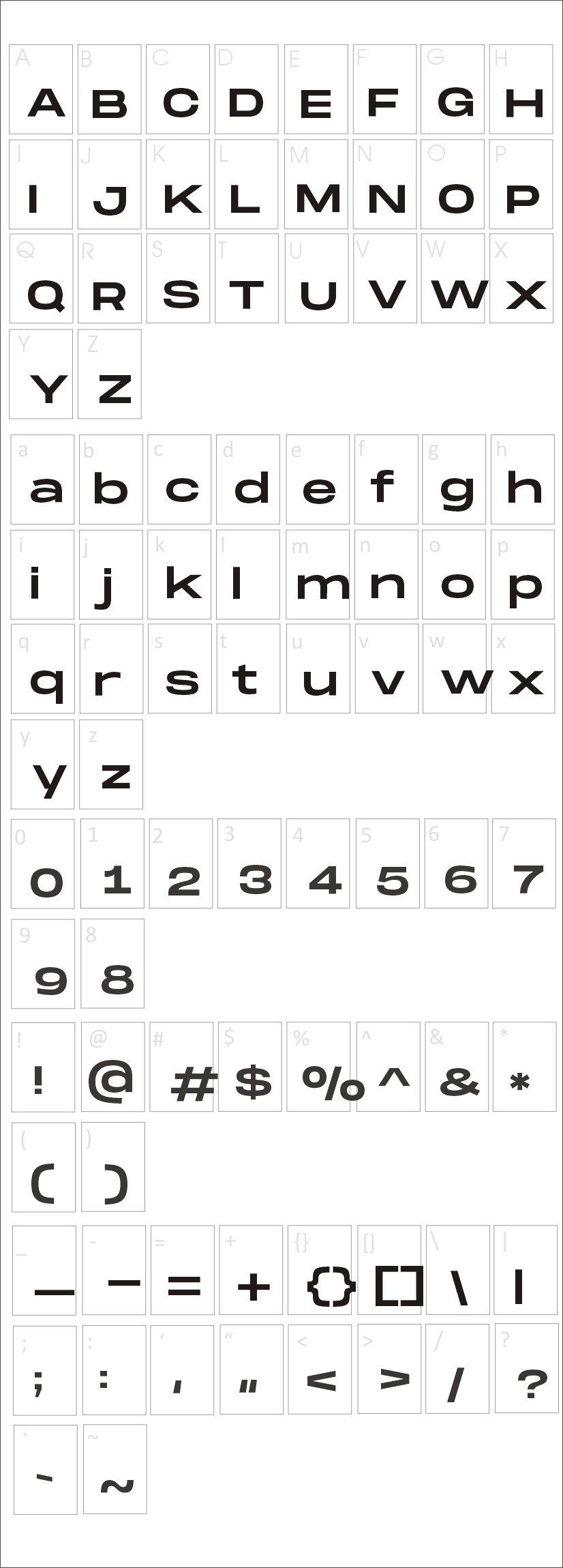
| Name | Monument Extended Font Family |
| Font Designer | Pangram Foundry |
| Category | Sans-Serif, Display, Modern |
Key Features of Monument Extended Font Family:
- Bold and Extended Design: Monument Extended is known for its bold, wide letterforms that make a strong visual impact. The elongated design adds a modern, sophisticated touch to any project.
- Perfect for Display: With its eye-catching and commanding presence, Monument Extended is ideal for large headlines, titles, and other display purposes where the text needs to grab attention.
- Geometric Precision: The font’s sharp, clean lines and geometric structure give it a minimalist, modern feel, making it perfect for contemporary branding and editorial layouts.
- Versatile Font Family: Monument Extended comes in multiple weights, offering designers flexibility in choosing the right style for various projects while maintaining a cohesive aesthetic.
Ideal Uses for Monument Extended Font Family:
- Logos and Branding: The boldness and clean lines of Monument Extended make it an excellent choice for creating memorable and impactful logos, especially for modern and high-end brands.
- Editorial and Print Design: This font family shines in editorial layouts, whether in magazines, brochures, or advertisements, where strong, stylish typography is needed to complement visuals.
- Fashion and Lifestyle Branding: This font family’s modern and sleek design makes it ideal for fashion and lifestyle brands that want to convey a sense of boldness and sophistication.
- Digital Design and Websites: Its readability and striking visual style make it a great choice for website headers, banners, and other digital design projects where a strong presence is required.
- Posters and Billboards: This font family is perfect for large-scale designs such as posters and billboards, where its extended letterforms ensure high visibility and immediate impact.